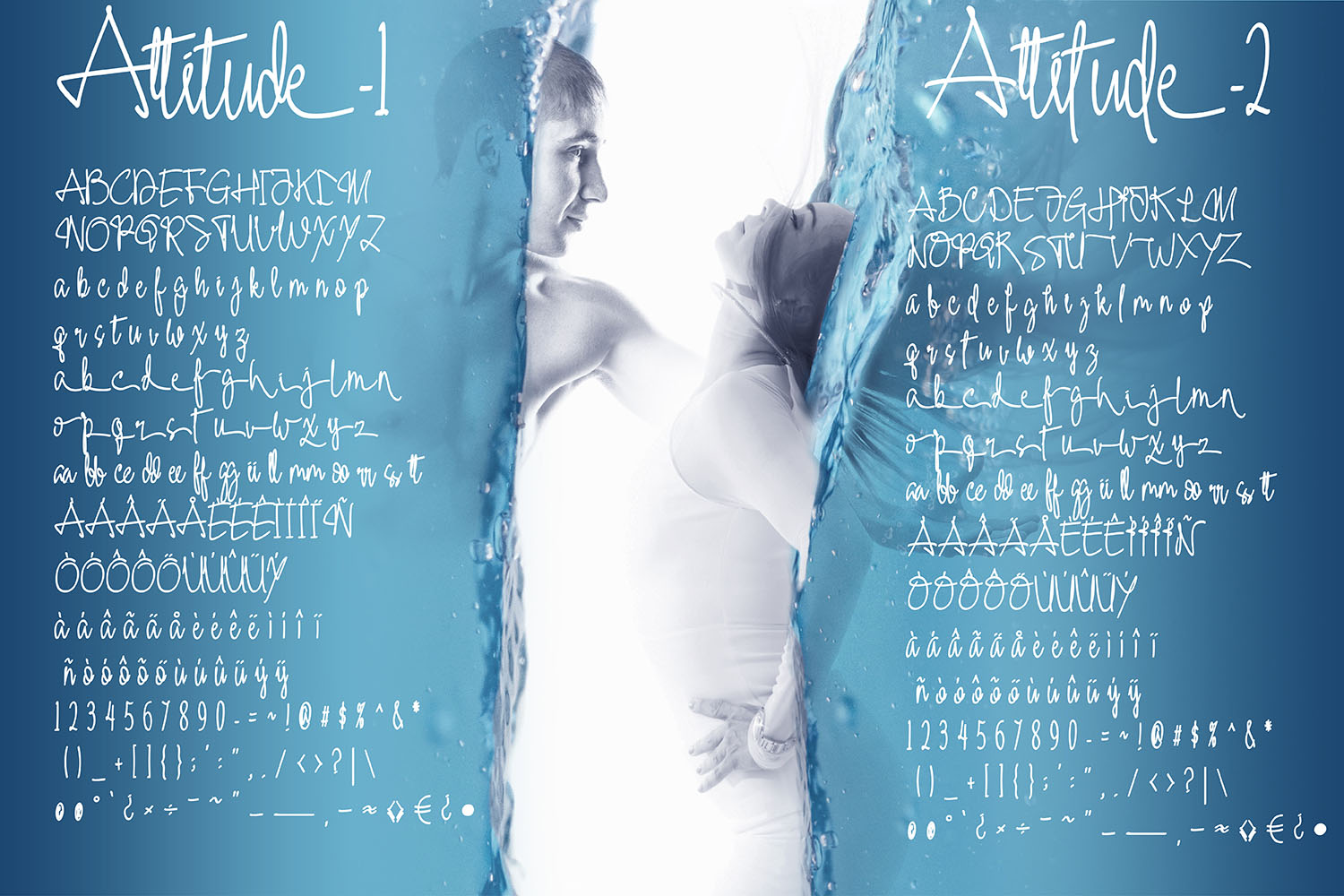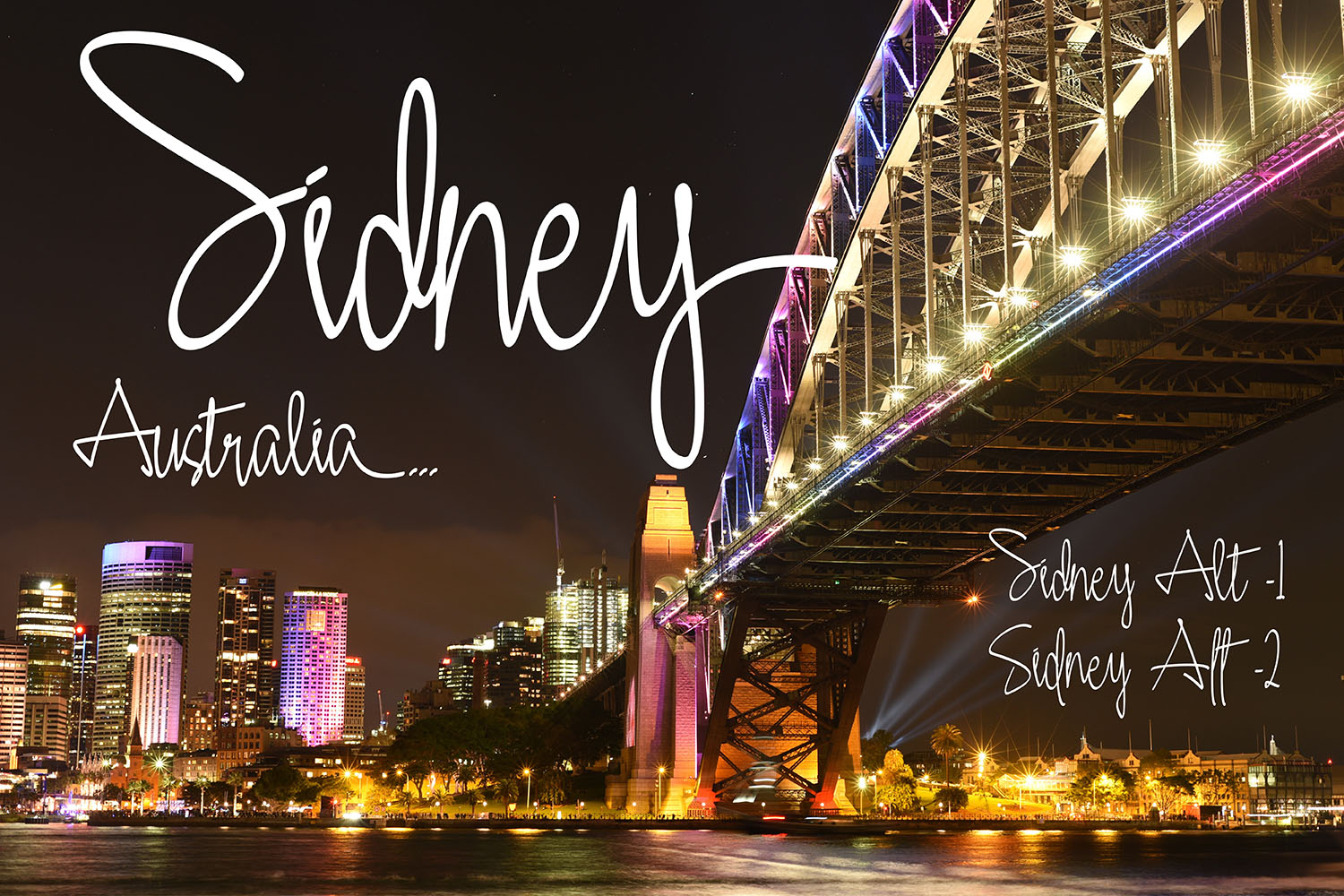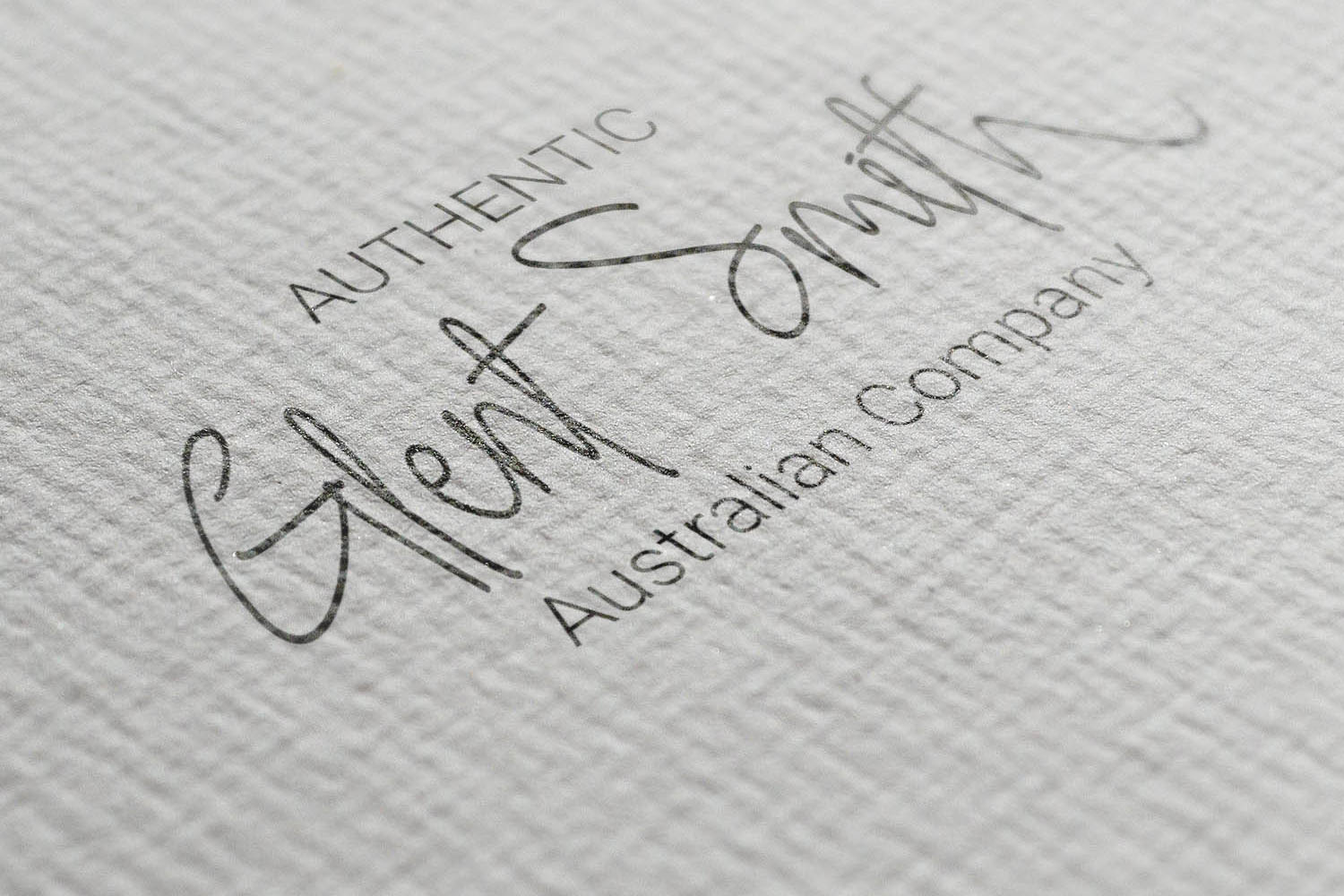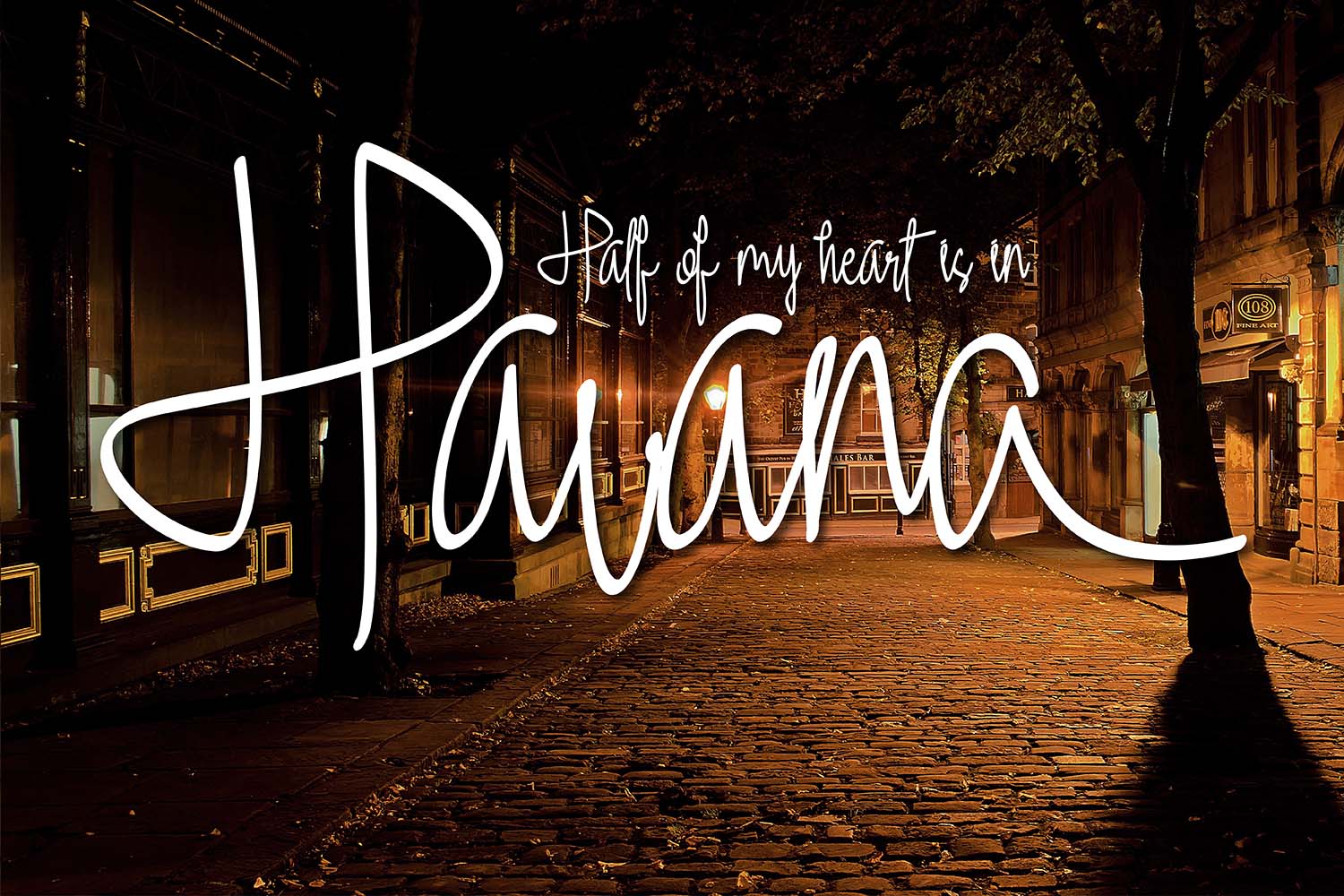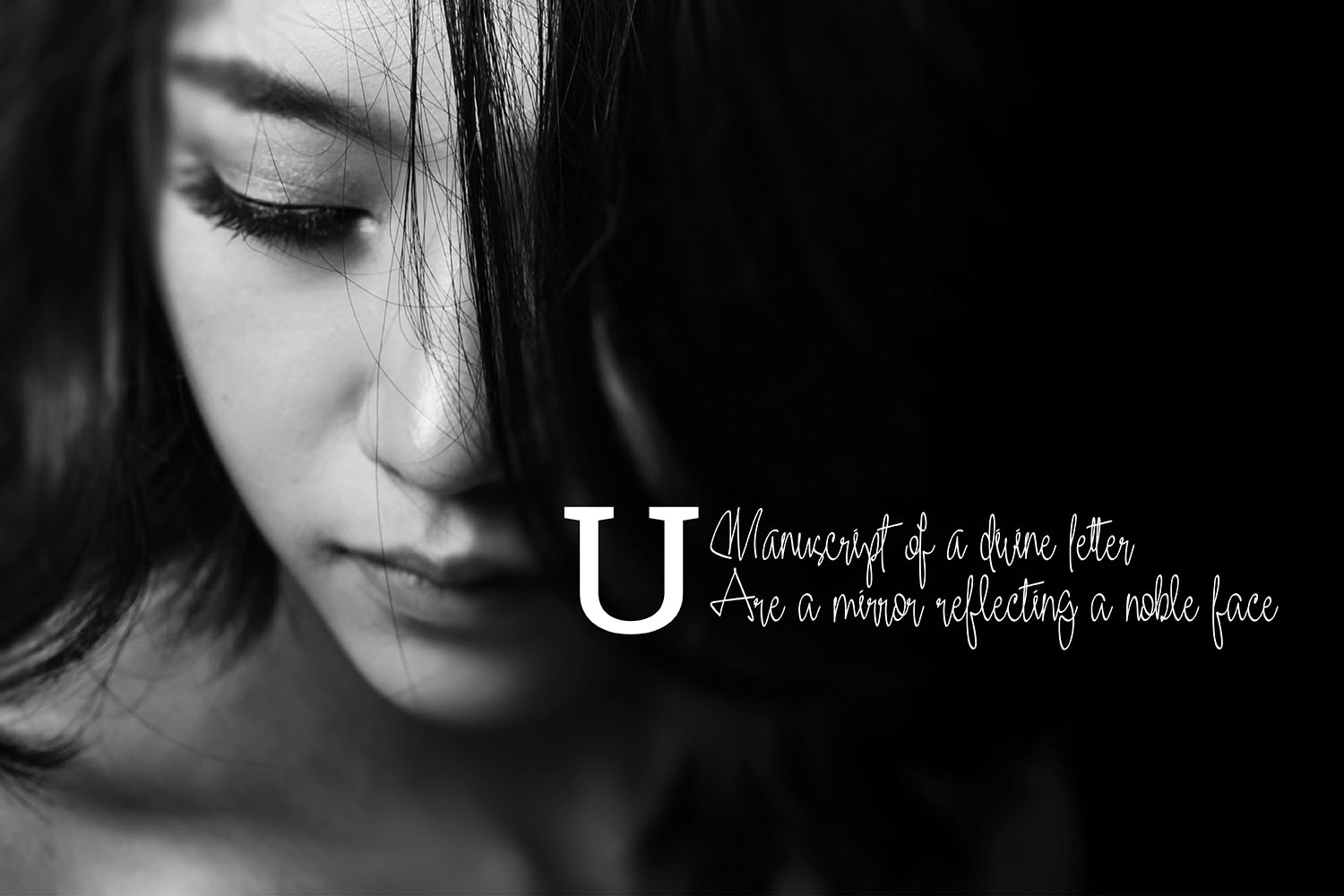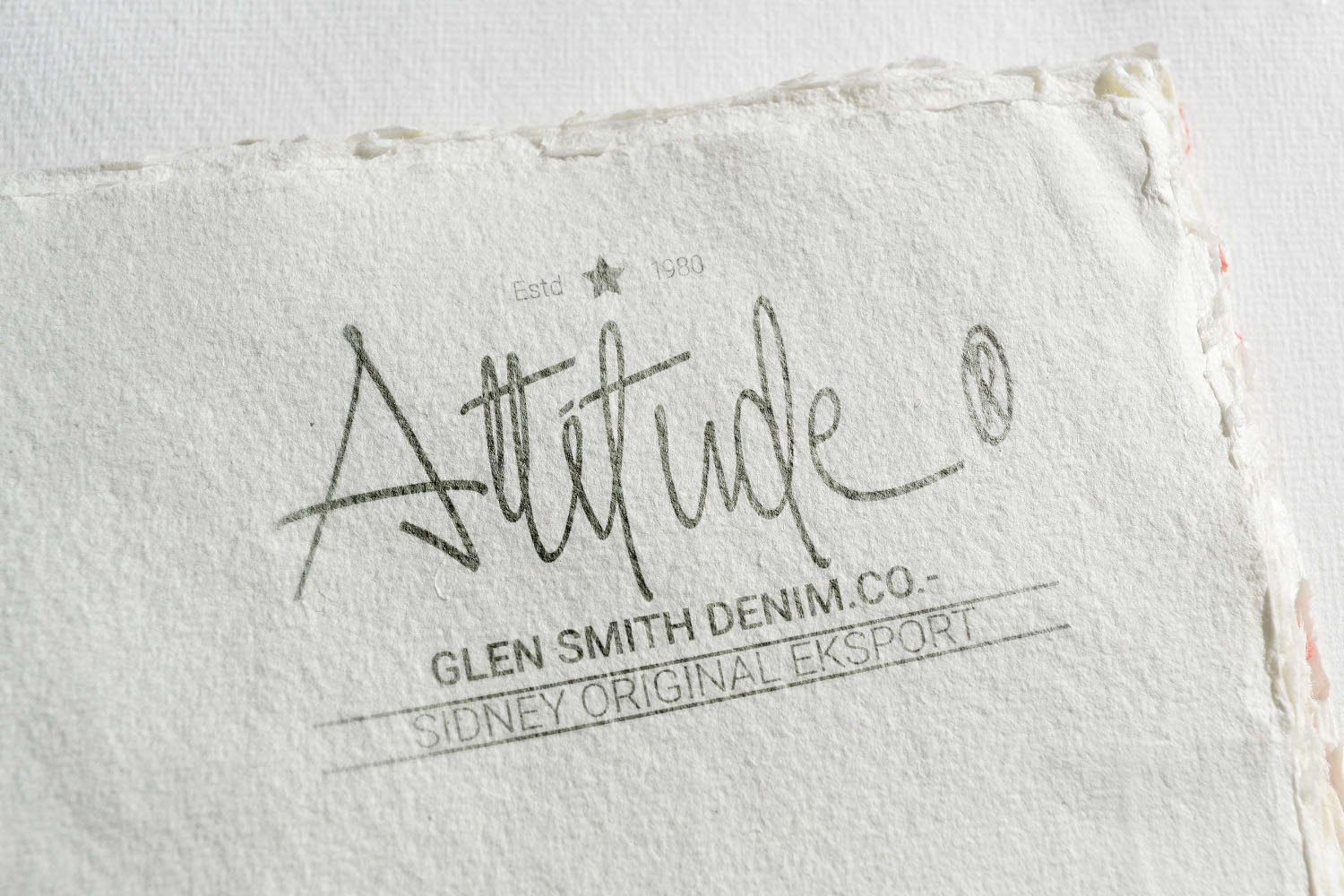
Introducing Attitude Font: Elevate Your Designs with Elegant Script
Are you looking for a font that can add a touch of elegance and sophistication to your designs? Look no further than Attitude Font, a beautiful script font that can instantly give your projects a handwritten feel. In this article, we’ll dive into the world of Attitude Font, exploring its features, benefits, and uses, as well as provide tips and inspiration for designers and crafters.
What is Attitude Font?
Attitude Font is a stunning script font that boasts an elegant and refined aesthetic. Its fluid strokes and cursive connections make it perfect for creating beautiful, hand-written designs that exude a sense of sophistication and style. Whether you’re working on a modern and hipster design or a more traditional invitation or print publication, Attitude Font is the perfect choice.
Key Features of Attitude Font
- Elegant Script Style: Attitude Font features a beautiful, cursive script style that adds a touch of elegance to any design.
- Flexible and Versatile: This font is highly versatile and can be used in a wide range of designs, from modern and hipster to traditional and classic.
- Handwritten Feel: Attitude Font’s fluid strokes and connections give it a natural, handwritten feel that’s perfect for creating unique and personalized designs.
- Perfect for Invitations and Print Publications: With its elegant and refined aesthetic, Attitude Font is ideal for use in invitations, print publications, and other formal designs.
Benefits of Using Attitude Font
So why choose Attitude Font for your designs? Here are just a few benefits of using this stunning script font:
- Adds Elegance and Sophistication: Attitude Font’s elegant script style adds a touch of sophistication and style to any design.
- Stand Out from the Crowd: With its unique and refined aesthetic, Attitude Font can help your designs stand out from the crowd and make a lasting impression.
- Perfect for Branding and Marketing: Attitude Font’s versatility and elegance make it perfect for use in branding and marketing materials, such as logos, business cards, and brochures.
- Easy to Read and Understand: Despite its elegant and cursive style, Attitude Font is highly legible and easy to read, making it perfect for use in body text and other written content.
Using Attitude Font in Your Designs
So how can you use Attitude Font in your designs? Here are a few tips and inspiration to get you started:
- Pair with Bold Fonts: Attitude Font pairs perfectly with bold and sans-serif fonts, creating a striking contrast that adds visual interest to your designs.
- Use in Invitations and Announcements: Attitude Font’s elegant and refined aesthetic makes it perfect for use in invitations, announcements, and other formal designs.
- Add a Personal Touch: Attitude Font’s handwritten feel makes it perfect for adding a personal touch to your designs, such as in quotes, testimonials, and other written content.
- Experiment with Colors and Textures: Attitude Font looks stunning in a range of colors and textures, so don’t be afraid to experiment and find the perfect combination for your design.
Whether you’re a seasoned designer or a crafty DIY enthusiast, here are a few tips for getting the most out of Attitude Font:
- Pay Attention to Font Size and Spacing: Make sure to adjust font size and spacing to ensure that Attitude Font is legible and easy to read.
- Experiment with Different Styles: Attitude Font comes in a range of styles and variations, so don’t be afraid to experiment and find the one that works best for your design.
- Use in Combination with Other Fonts: Attitude Font pairs perfectly with other fonts, so don’t be afraid to combine it with bold and sans-serif fonts to create visual interest.
- Have Fun and Be Creative!: The most important thing is to have fun and be creative with Attitude Font – experiment with different styles, colors, and textures to find the perfect combination for your design.
| Font Name | Attitude Font |
| Author | 38.lineart |
In conclusion, Attitude Font is a stunning script font that can add a touch of elegance and sophistication to any design. With its flexible and versatile aesthetic, it’s perfect for use in a wide range of designs, from modern and hipster to traditional and classic. Whether you’re a designer or a crafter, Attitude Font is a must-have font that can help you create beautiful and unique designs that stand out from the crowd.